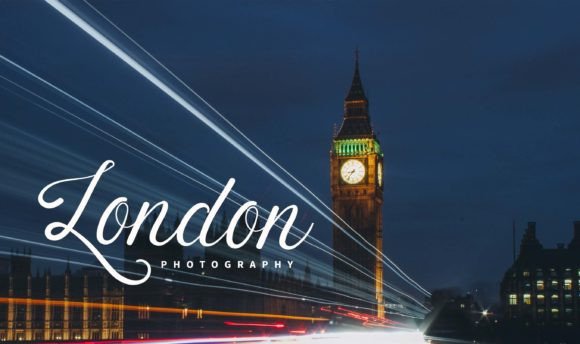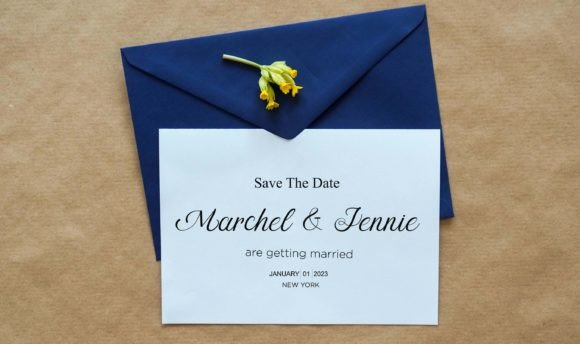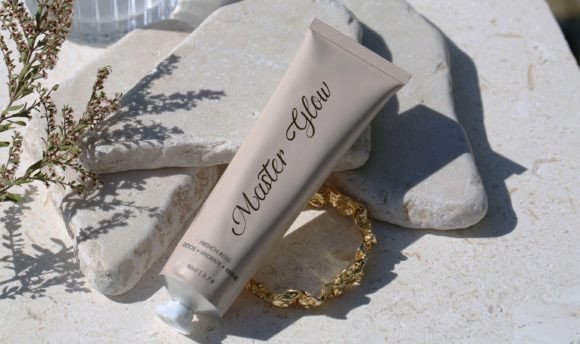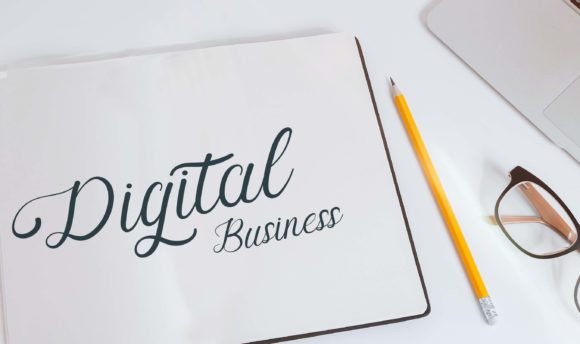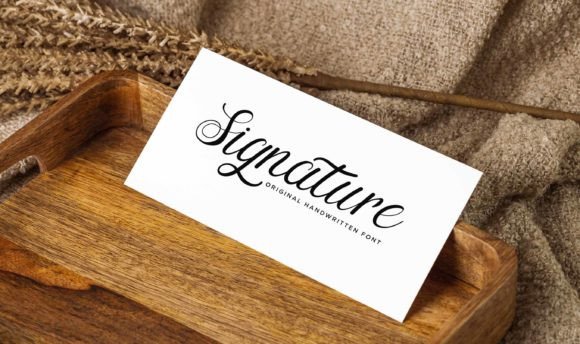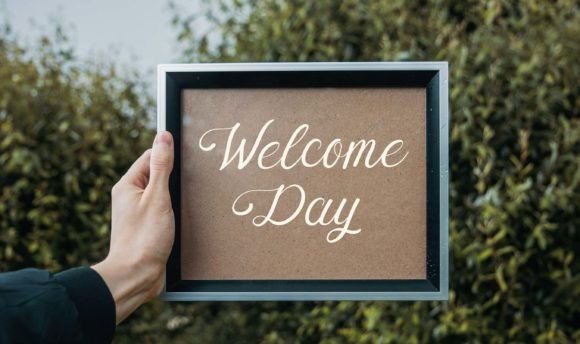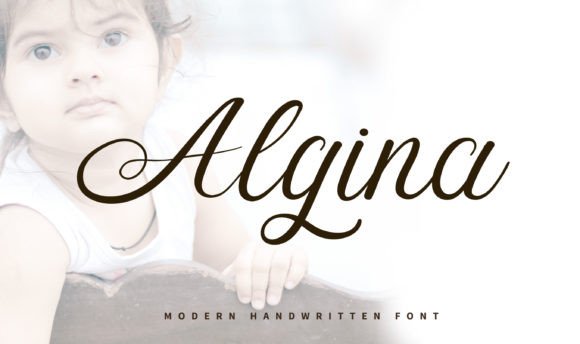
Introducing Algina Font: Elevate Your Designs with Elegant Handwritten Charm
Are you searching for a font that adds a touch of sophistication and elegance to your designs? Look no further than Algina Font, a beautiful handwritten typeface that will make your work or project stand out through its elegant curved lines. With its versatility and charm, Algina Font is perfect for a wide range of designs and projects, from invitations and labels to branding and digital content.
What Makes Algina Font Special?
Algina Font boasts a unique and captivating style that sets it apart from other fonts. Its elegant curved lines and fluid strokes give it a distinctive, handcrafted feel that’s perfect for designs that require a personal touch. Whether you’re working on a romantic novel, a fashion brand, or a wedding invitation, Algina Font is sure to add a touch of sophistication and whimsy.
Perfect for a Variety of Designs and Projects
Algina Font is incredibly versatile and can be used for a wide range of designs and projects, including:
- Invitations: wedding invitations, birthday invitations, graduation invitations, and more
- Labels and packaging: product labels, packaging design, and branding
- Menus: restaurant menus, cafe menus, and food-related branding
- Logos: fashion logos, beauty logos, and lifestyle brand logos
- Fashion and makeup: fashion branding, makeup branding, and product design
- Stationery: greeting cards, wedding cards, and stationery sets
- Letterpress: letterpress printing, business cards, and stationery
- Romantic novels and books: book covers, e-book design, and author branding
- Magazines and publications: magazine design, article headers, and title pages
- Greeting and wedding cards: custom cards, stationery sets, and paper crafts
- Brand identity: business branding, company logos, and marketing materials
- Clothing industry: fashion labels, clothing branding, and apparel design
- Posters and games: poster design, game graphics, and advertising
- Instagram and YouTube: social media graphics, video titles, and channel branding
- Websites: website headers, website design, and digital marketing materials
- Cartoon and animation: cartoon characters, animation titles, and children’s book design
Why Choose Algina Font?
There are many reasons why Algina Font stands out from other fonts:
- Elegant and sophisticated: Algina Font adds a touch of elegance and sophistication to any design or project.
- Versatile: Algina Font can be used for a wide range of designs and projects, from invitations to branding.
- Handwritten charm: Algina Font has a unique, handcrafted feel that’s perfect for designs that require a personal touch.
- Easy to read: Algina Font is clear and easy to read, making it perfect for body text and headlines.
Tips for Using Algina Font
Here are some tips for getting the most out of Algina Font:
- Use it as a headline font: Algina Font is perfect for headlines and titles, adding a touch of elegance and sophistication to any design.
- Pair it with a sans-serif font: Pair Algina Font with a sans-serif font for body text to create a beautiful contrast.
- Experiment with colors: Algina Font looks great in a variety of colors, from bold and bright to soft and pastel.
- Add some flair: Use Algina Font to add some flair to your designs, such as decorative letters or accents.
Algina Font is a beautiful handwritten typeface that will elevate your designs and projects to the next level. With its elegant curved lines, versatility, and charm, it’s perfect for a wide range of designs and projects. Whether you’re a designer, crafty DIY enthusiast, or simply someone looking for a unique font, Algina Font is sure to inspire and delight.